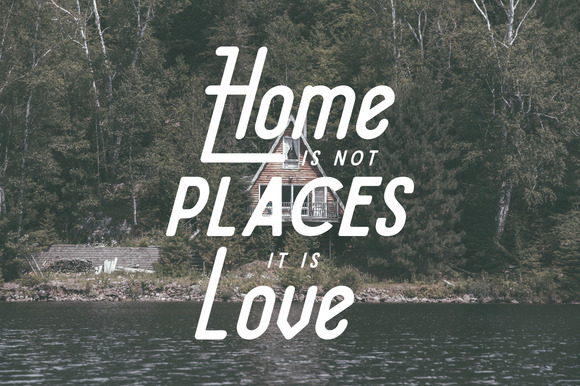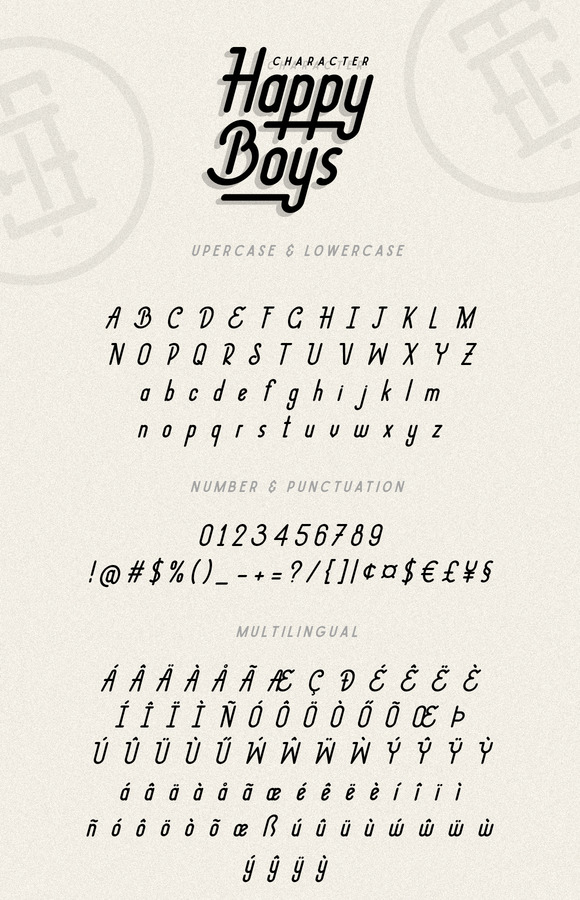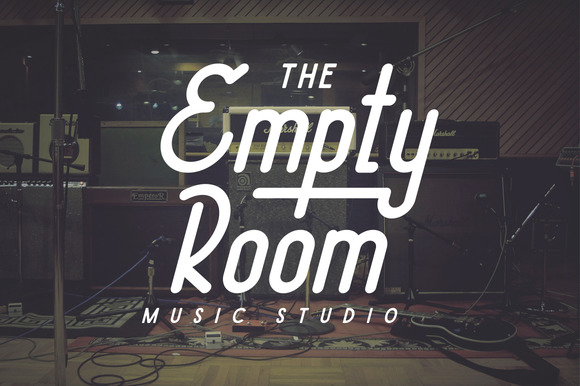
Happy Boys Typeface
It is very honor to introduce you to the best quality typography, today is a great modern classic combining style, you will definitely like it. Introducing Happy Boys Typeface! Happy Boys designed by Angga Mahardika, this is a premium font, are sold on creativemarket, but it was great, it is free today for download. Happy Boys font beautifully and looks like freshly handmade for wedding card, logotype, branding project, website header, product packaging, fashion design and Your any creative project.